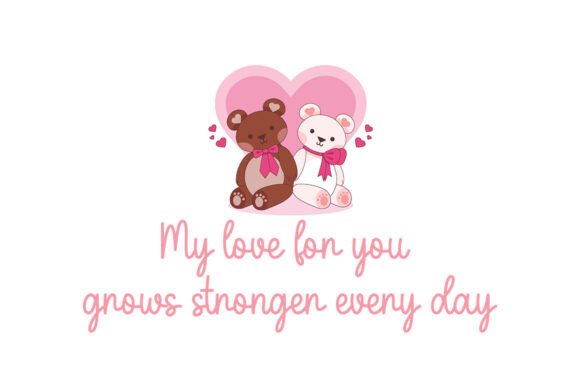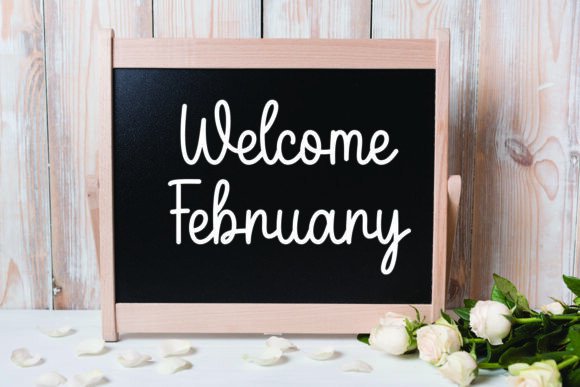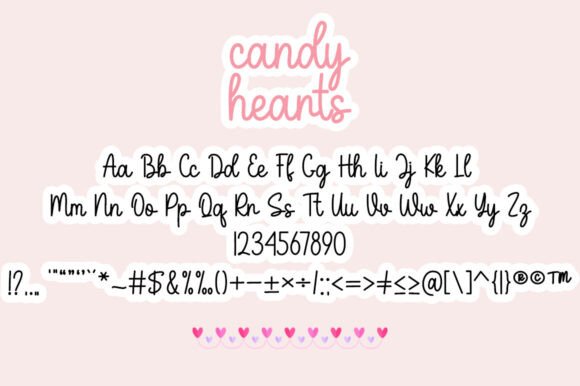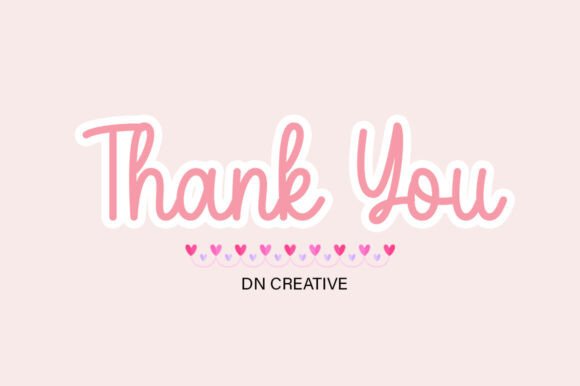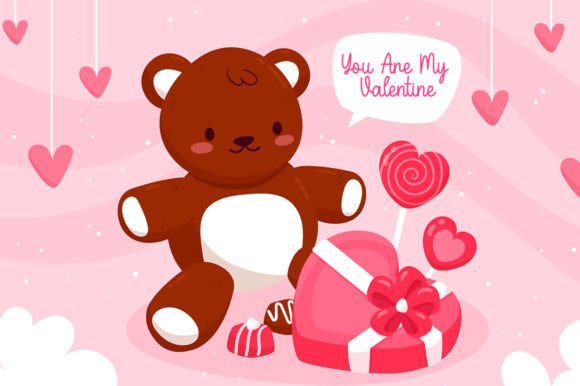
Introduction to Candy Hearts Font
Candy Hearts is a graceful, modern calligraphic font.
With its beautiful rhythm, this font will help you create gorgeous and classy compositions Use it for branding projects, invitations, web graphics, cards, and many more.
Key Features of Candy Hearts Font
Why Choose Candy Hearts Font?